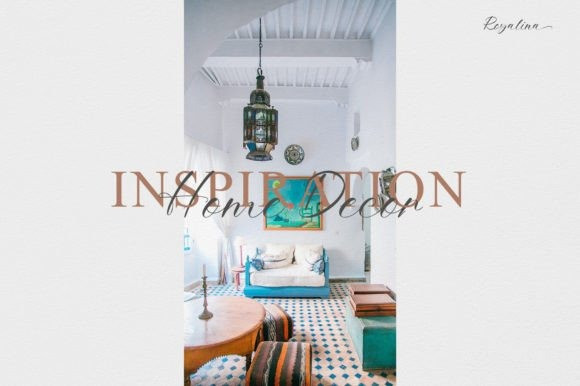
Royalina Font
Royalina is a flowing handwritten font, described by an elegant touch, perfect for your favorite projects. Fall in love with its incredibly distinct and timeless style and use it to create spectacular designs!